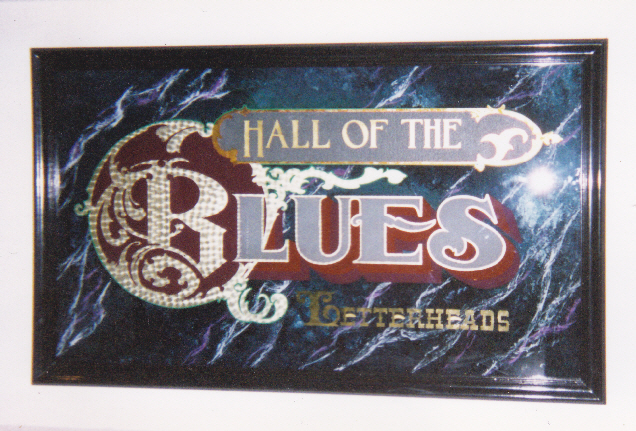
Photographed in Kentucky.
Sandblast Glass Sign
Re: Sandblast Glass Sign
Whats the "B" letter made of ?
Re: Sandblast Glass Sign
Don't worry, I worked it out you engine turned the gild